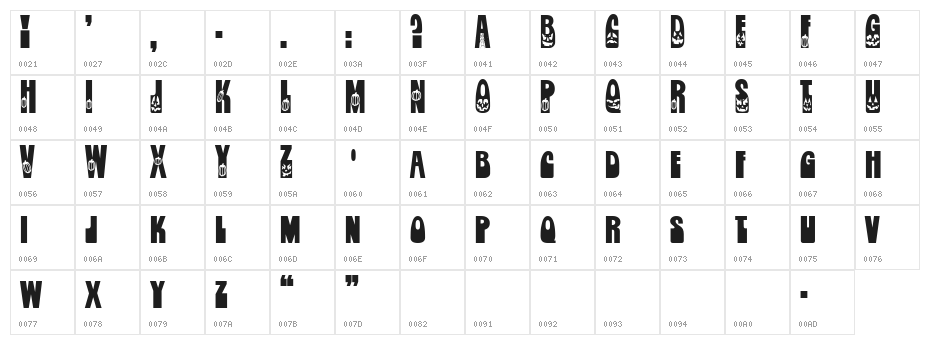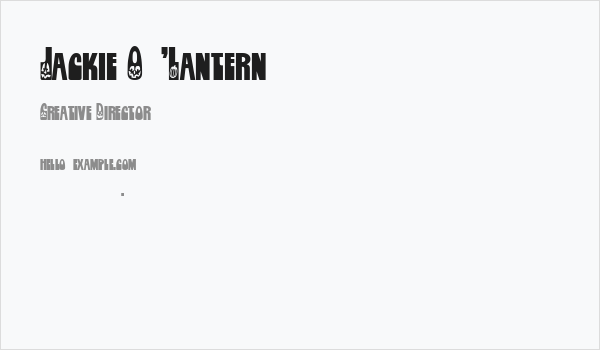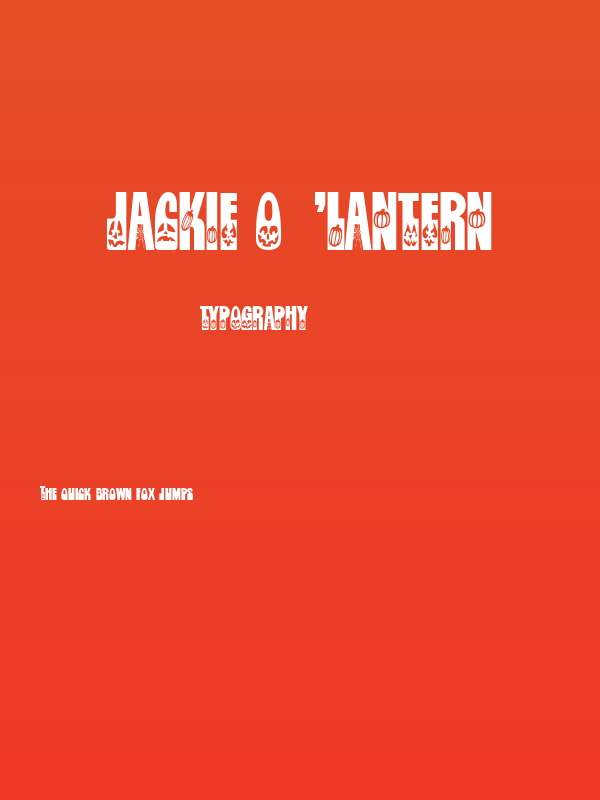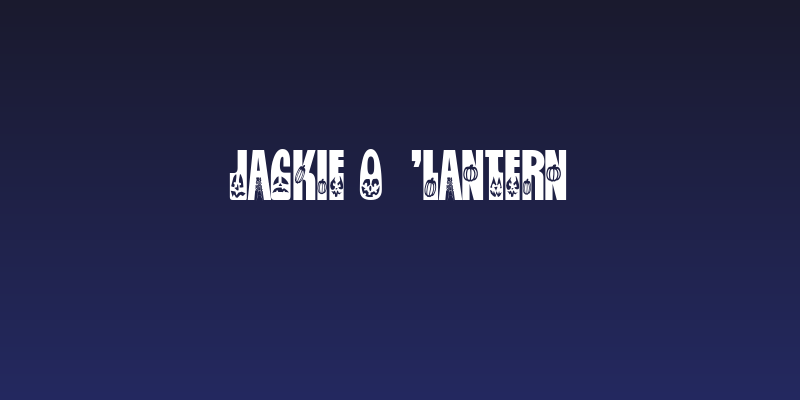
Jackie O'Lantern Font
Jackie O'Lantern Description
This playful and bold decorative font is designed with a Halloween theme, incorporating jack-o'-lantern faces and pumpkin motifs into the letterforms. The uppercase letters are creatively filled with spooky elements, making it ideal for seasonal designs. The font maintains a consistent weight and width, providing a cohesive look despite its intricate details. Its unique style captures the essence of Halloween, making it perfect for festive projects. The characters are tightly spaced, enhancing the compact and bold appearance. The font's high contrast between the filled areas and the negative space ensures readability while maintaining its decorative appeal.
| Proposed Projects | Ideal for Halloween invitations, party decorations, themed posters, and festive merchandise. |